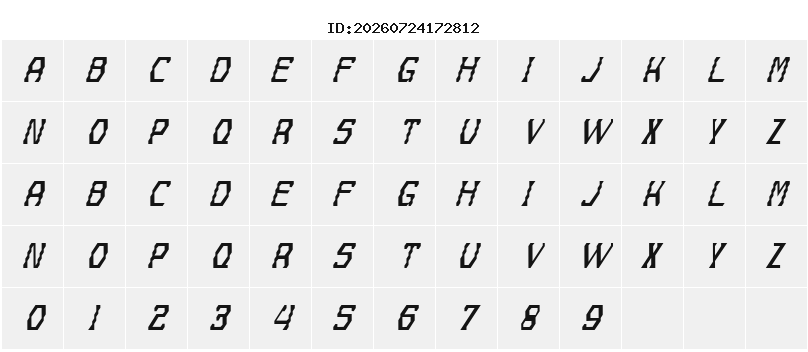
• Font Name: Gyrussian
Gyrussian.ttf is a modern, elegant sans-serif font designed for ultimate readability and visual harmony. Perfect for branding, headlines, web design, and print materials.